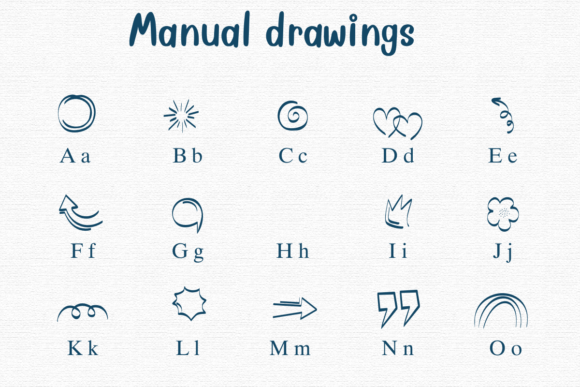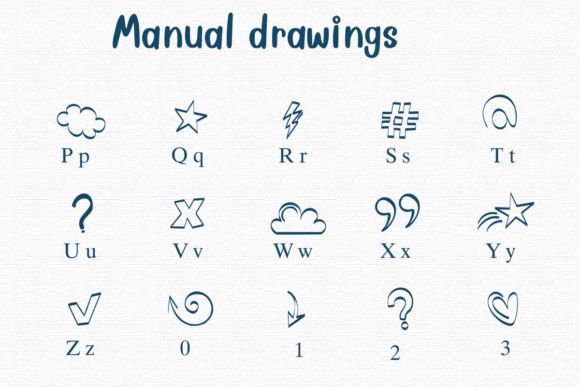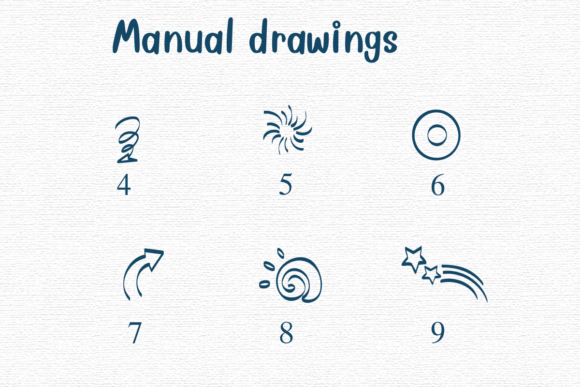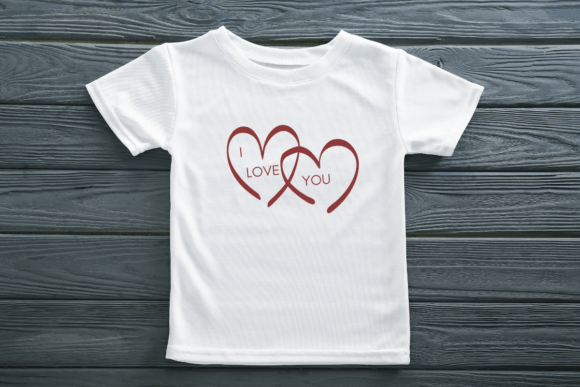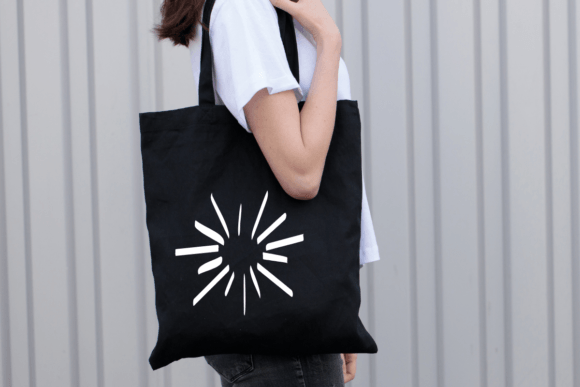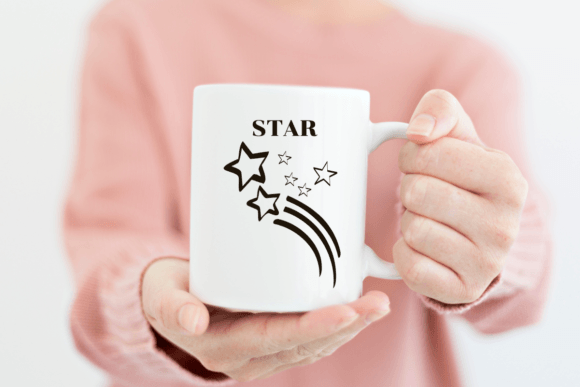
Manual Drawings Font – Free Download
Introduction to Manual Drawings Font
Manual drawings is a dingbats font with theme with a sketch style.
This font can enhance your creative projects such as wedding invitations, DIY, crafts, decorations, logos, and many other creative ideas .
Manual Drawings Font offers exceptional quality and versatility, making it a valuable addition to your design toolkit. Whether you’re creating for personal projects or commercial use, Manual Drawings Font delivers professional results.